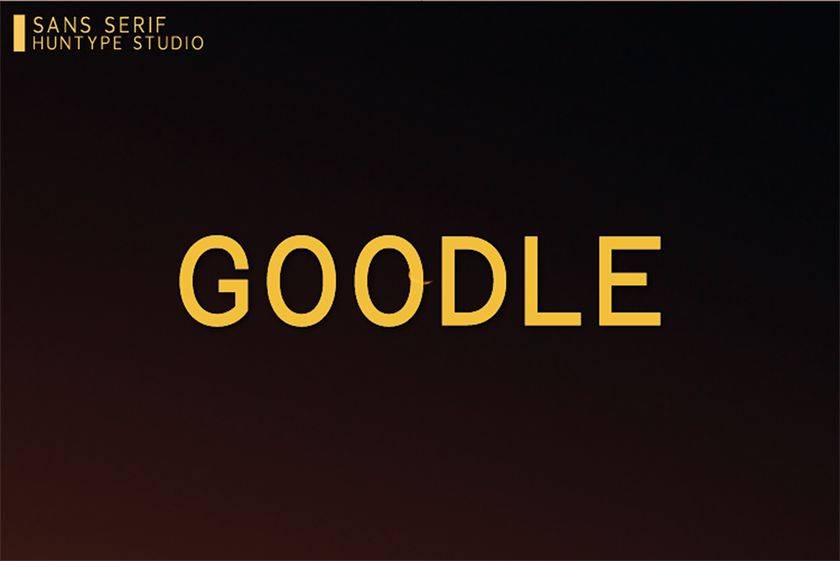
Goodle Font is a clean, modern sans serif typeface with a strong, straightforward presence. Its uniform stroke weight and tall, narrow letterforms give it a professional and efficient feel, making it ideal for clear, impactful headlines and branding where clarity and simplicity are key. This font works well in digital and print contexts that require a no-nonsense, contemporary look, such as corporate communications, tech websites, and minimalist design projects.
Goodle Font
About Goodle Font
| Font family | Goodle Font |